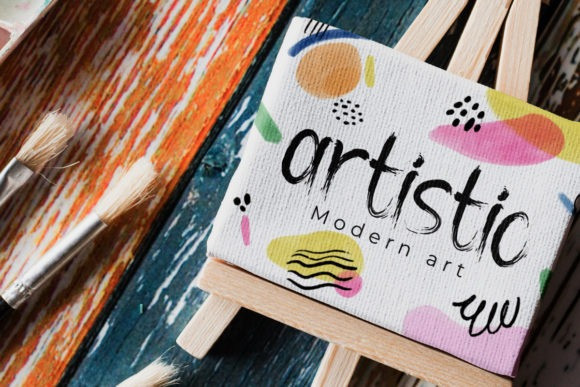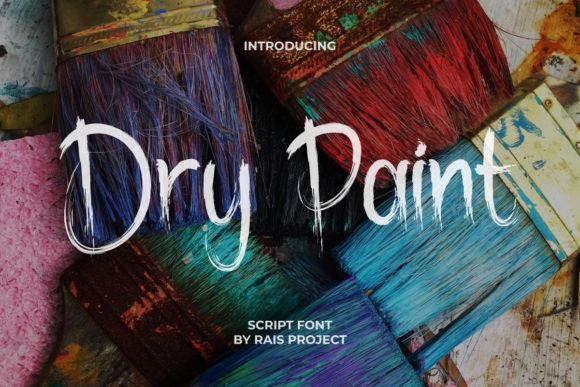
Dry Paint Font
Dry Paint Brush Font is a cool, brushed display font. It is PUA encoded which means you can access all of the amazing glyphs and ligatures with ease!
Add it confidently to your favorite creations and let yourself be amazed by the outcome generated.